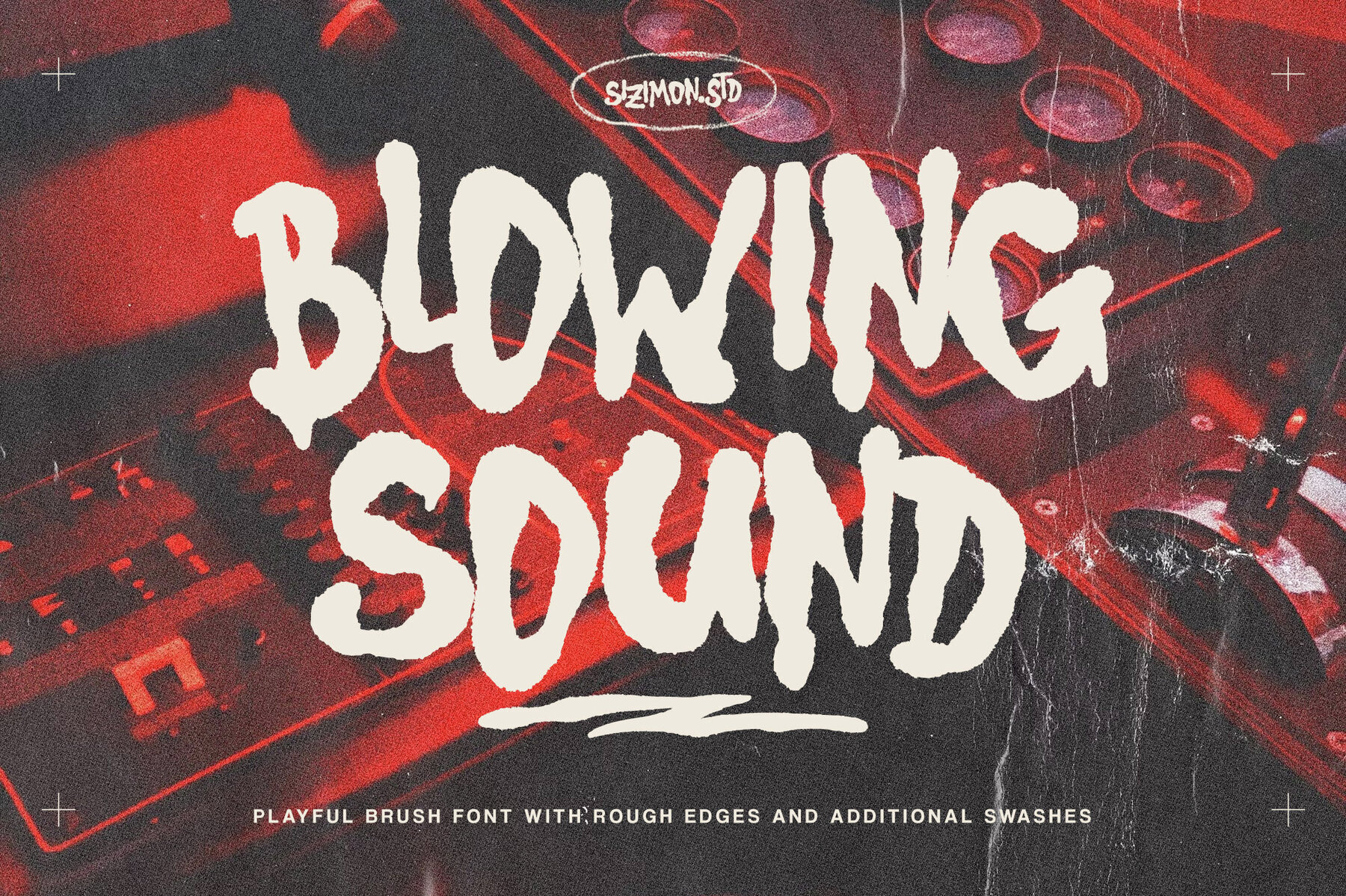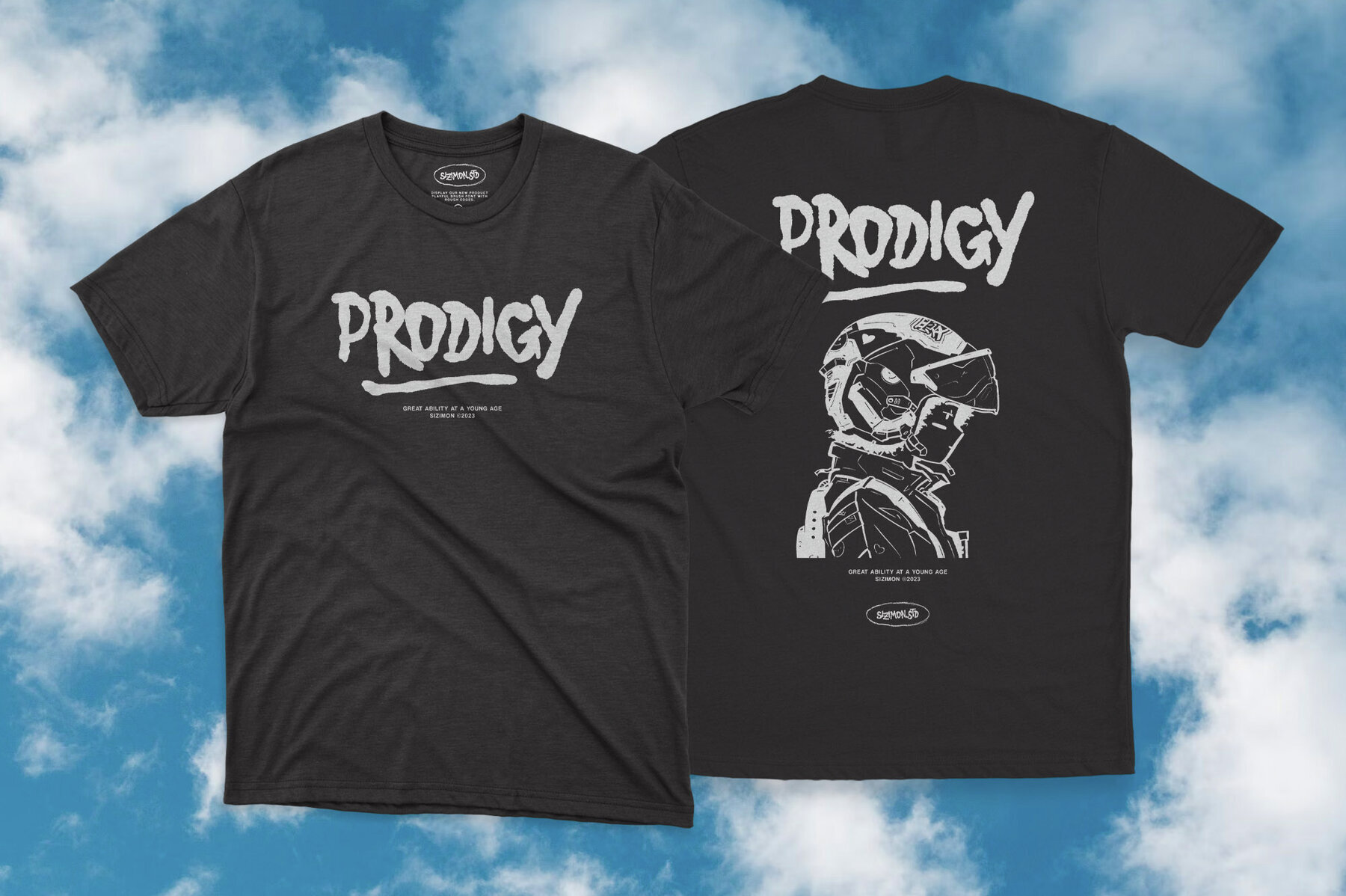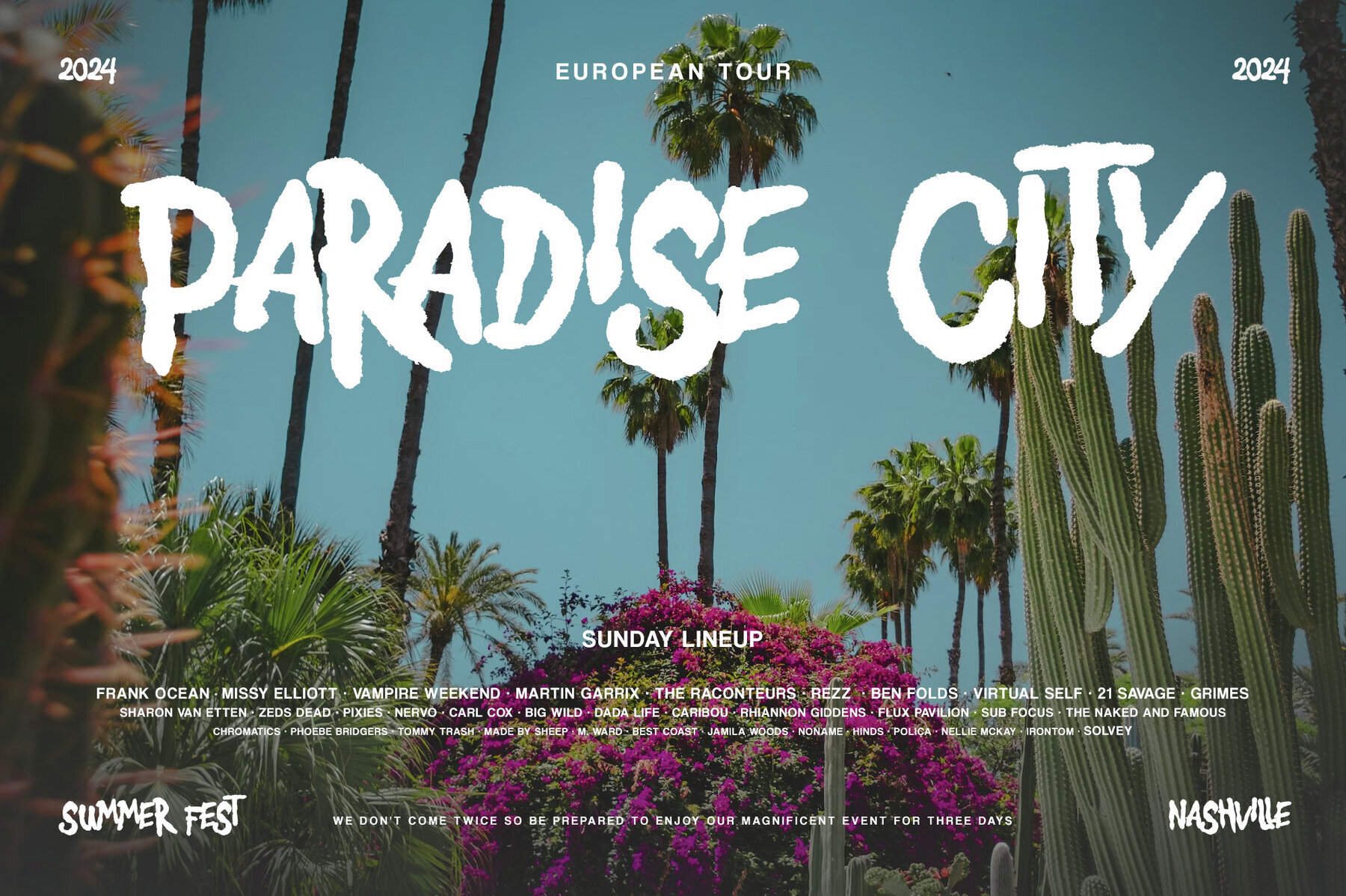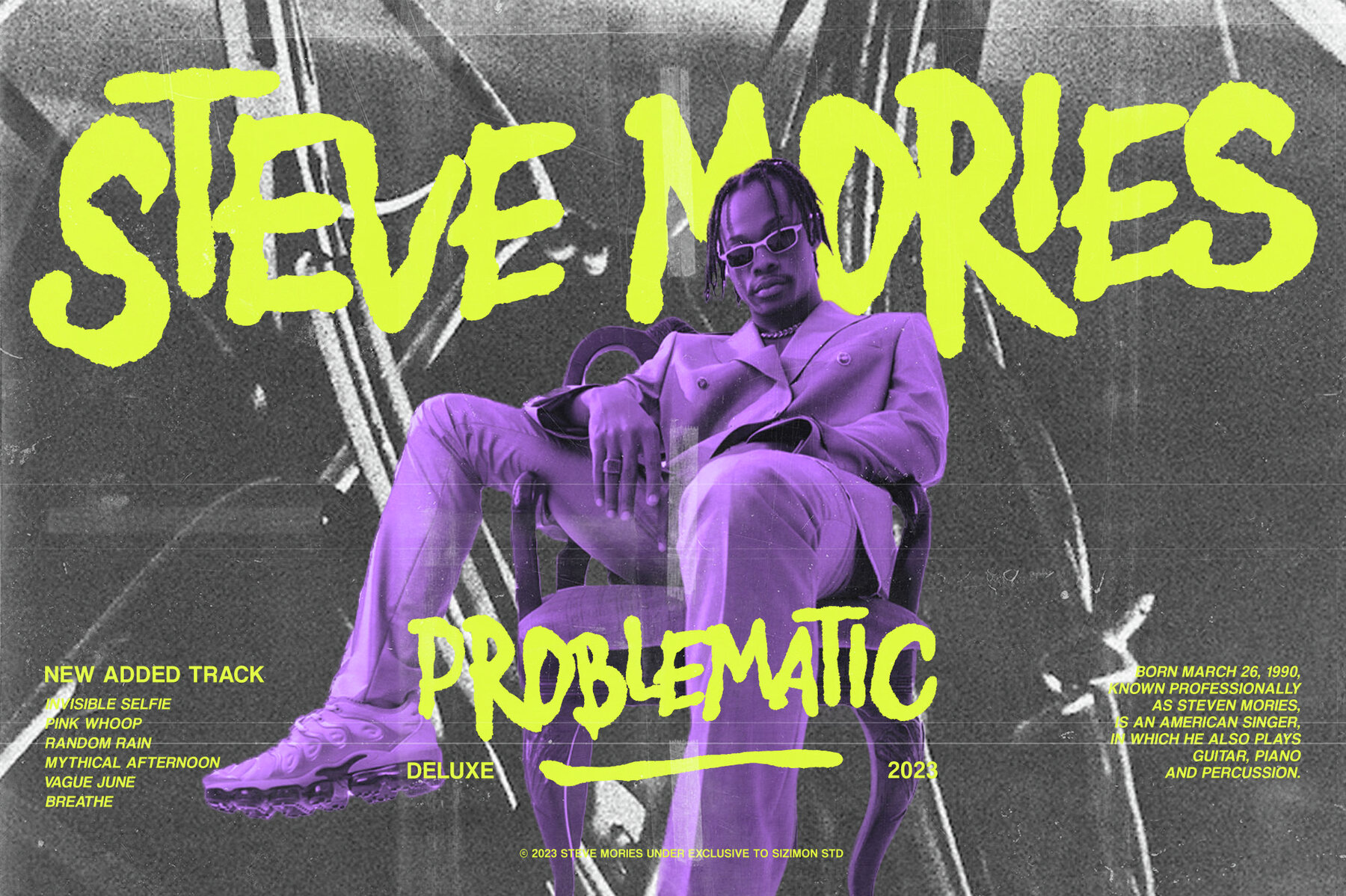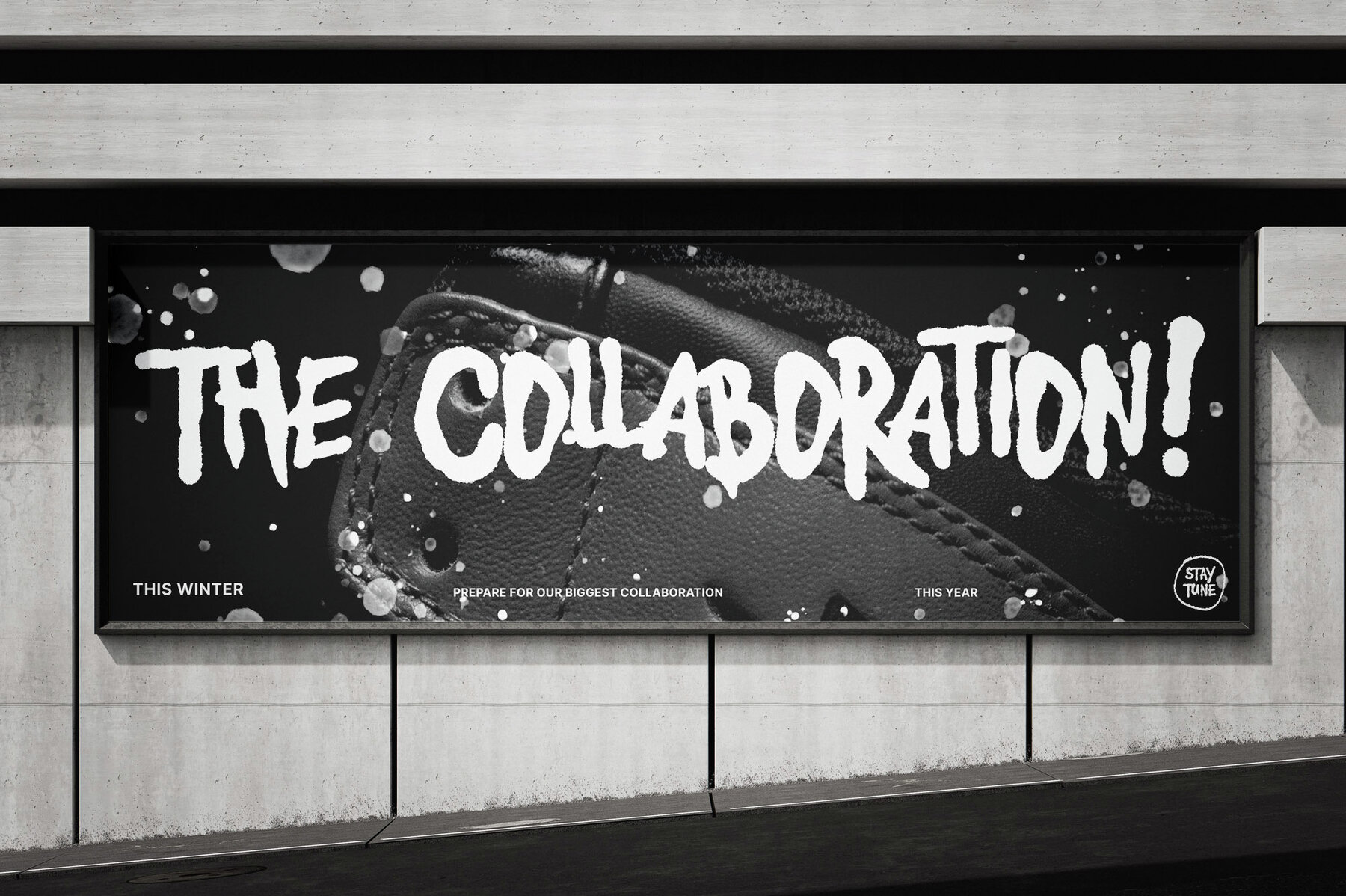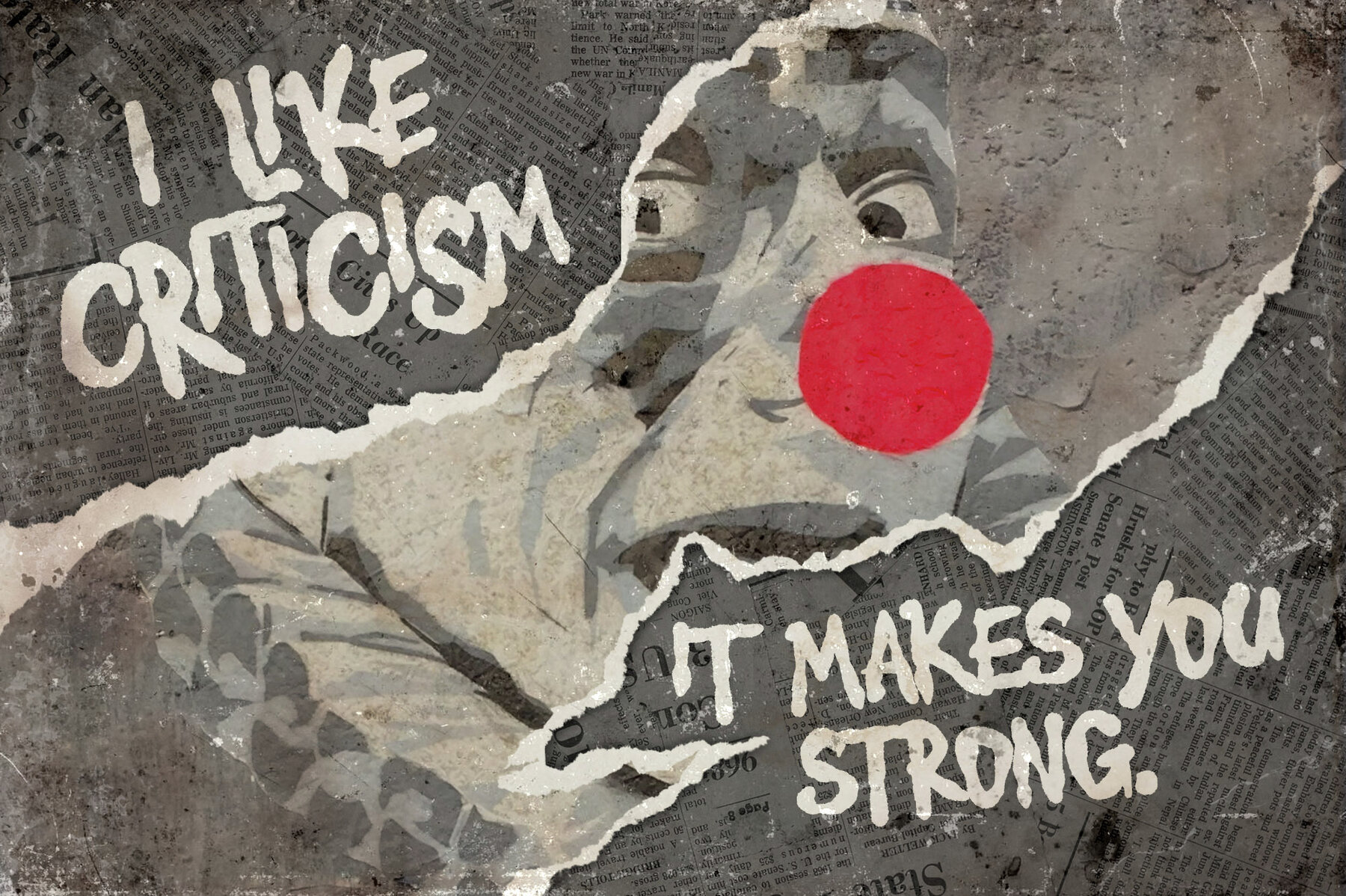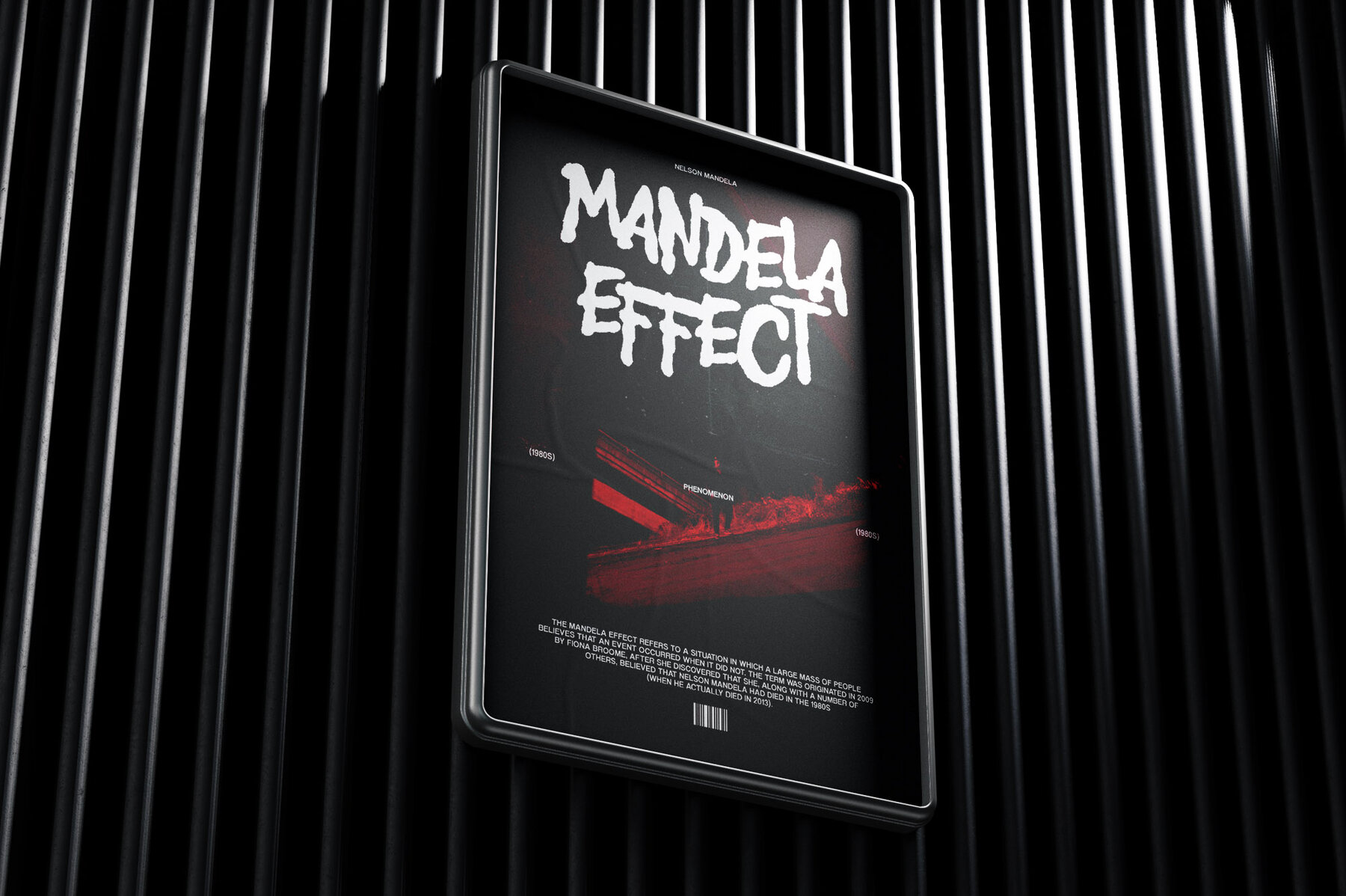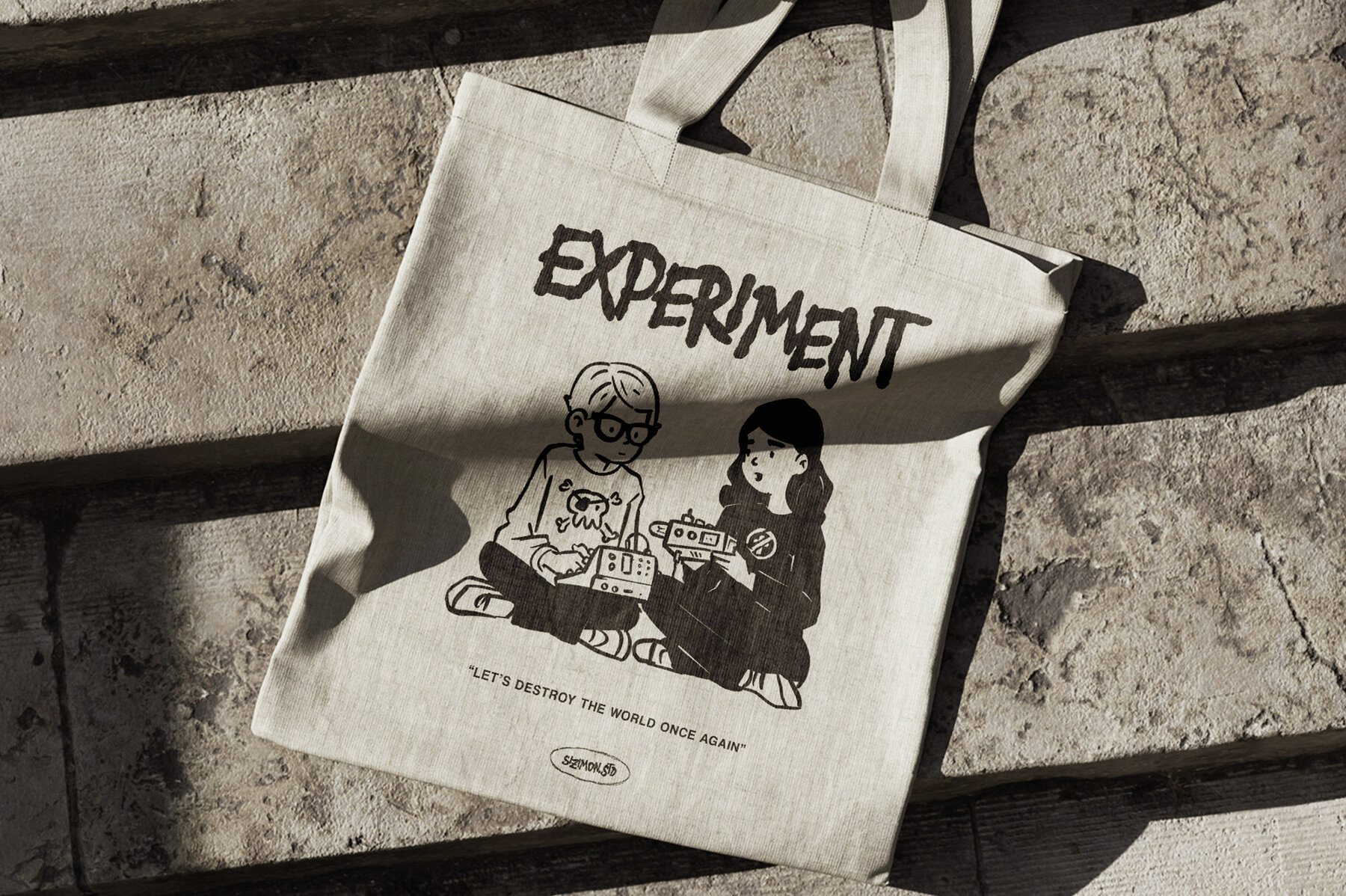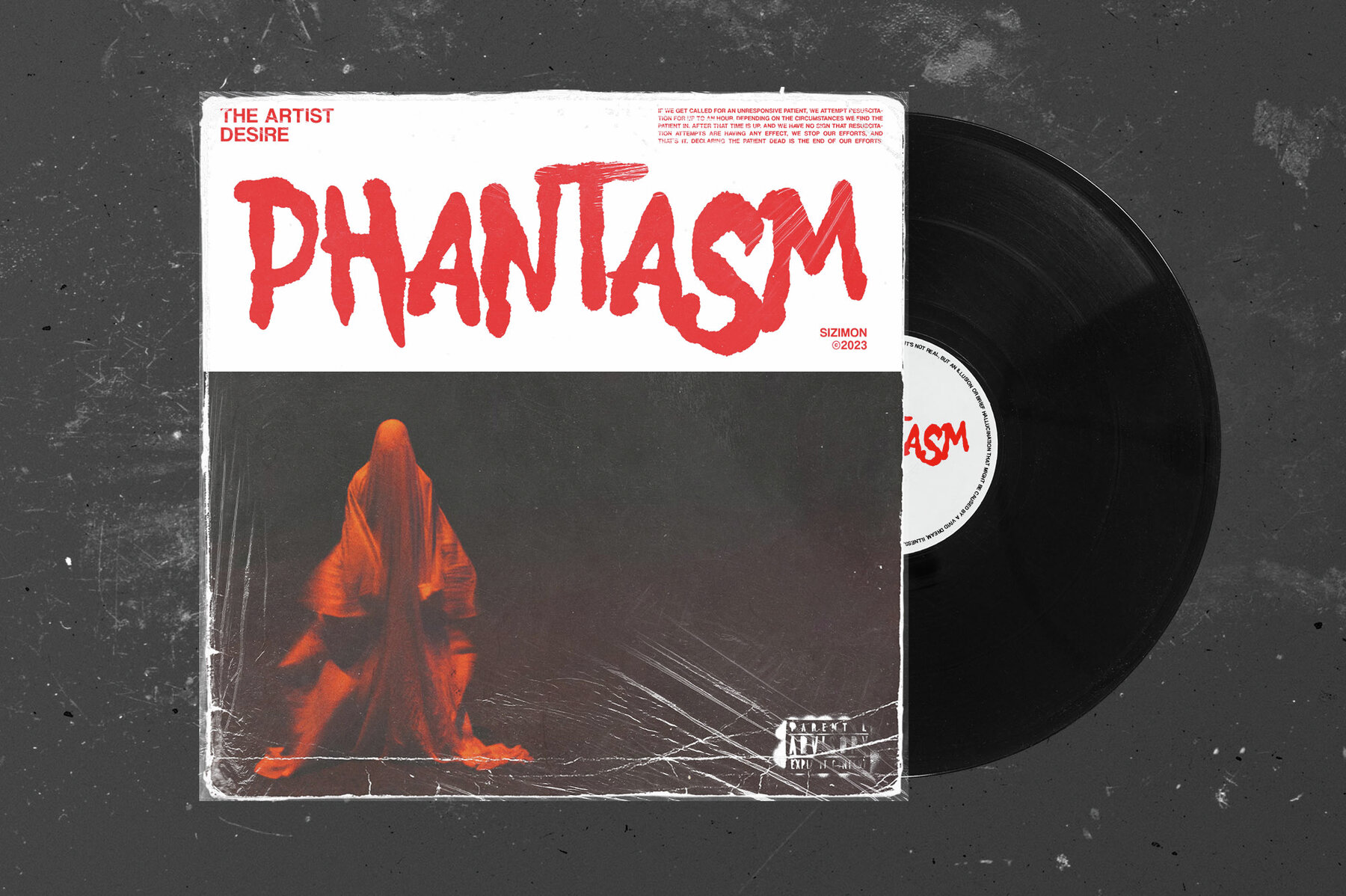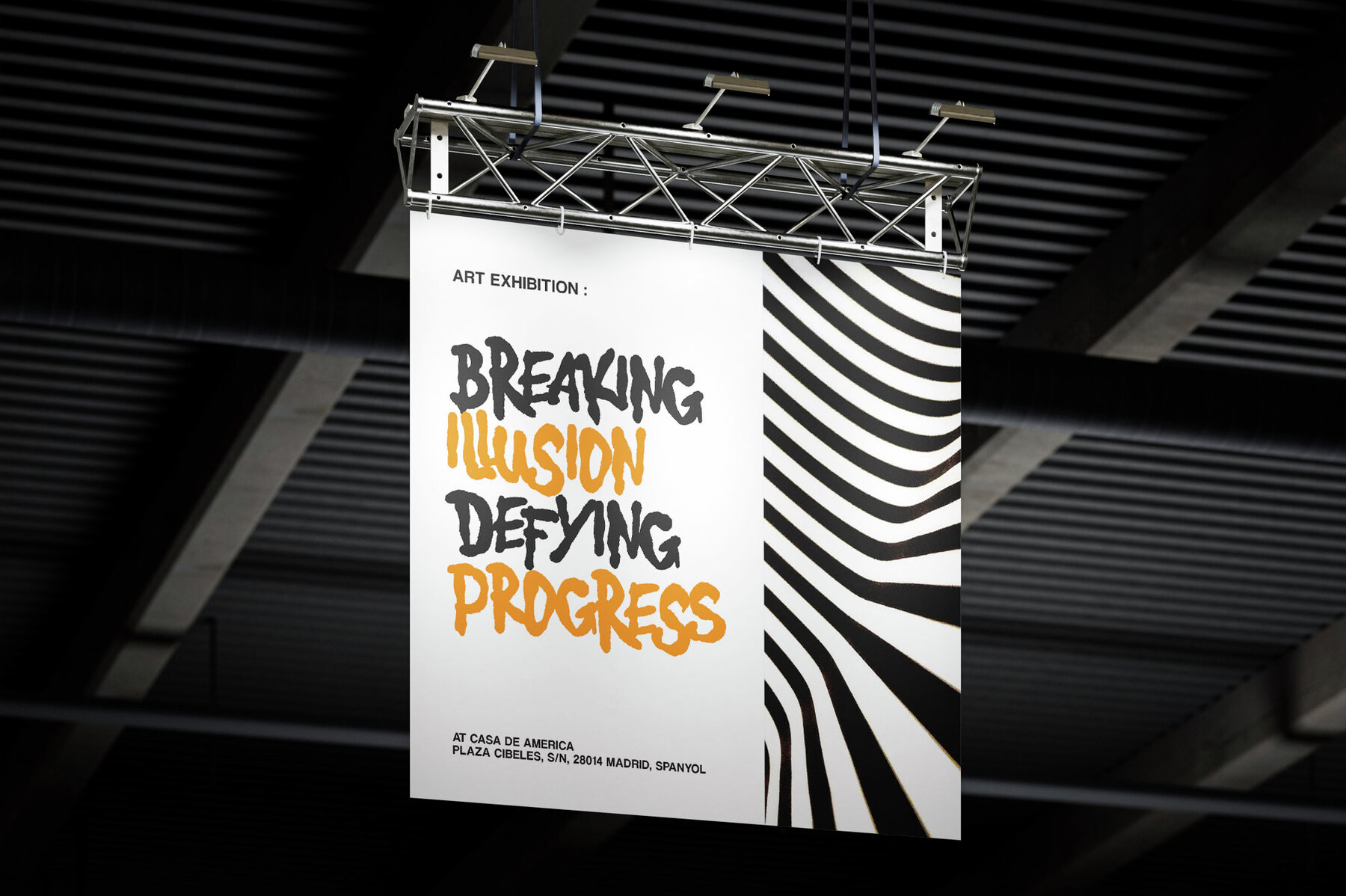
Blowing Sound Font
blowing sound brush
Blowing Sound is a handcrafted script font that captures the spontaneous charm of brush strokes. Ideal for logos, name tags, handwritten quotes, and product packaging, this font adds a personal touch to merchandise, social media posts, and greeting cards. Its intuitive design streamlines the creation of t-shirts and other products, saving valuable time during the design process. Featuring a comprehensive set of uppercase and lowercase letters, punctuation, numerals, and extensive multilingual support, Blowing Sound is a versatile tool for creatives. For those looking to access alternate glyphs, applications that support OpenType features such as Adobe Illustrator, Photoshop, InDesign, and Corel Draw are recommended.Blowing Sound: Expressive Brush Script Font